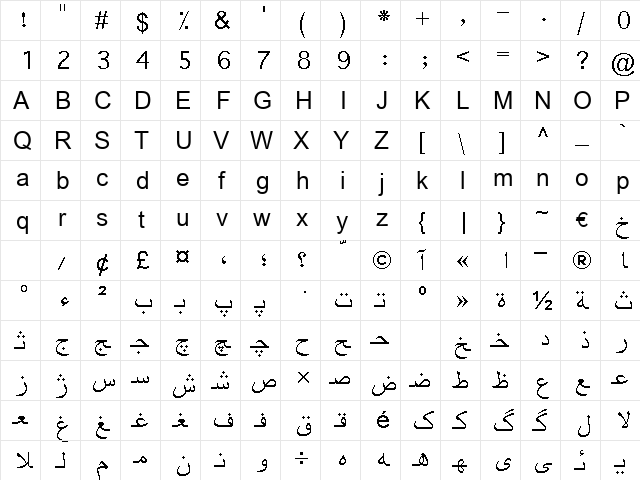
Nimrooz Regular
Nimrooz takes a measured approach to typography — its balanced proportions and neutral character make it a reliable workhorse for both digital and print work.